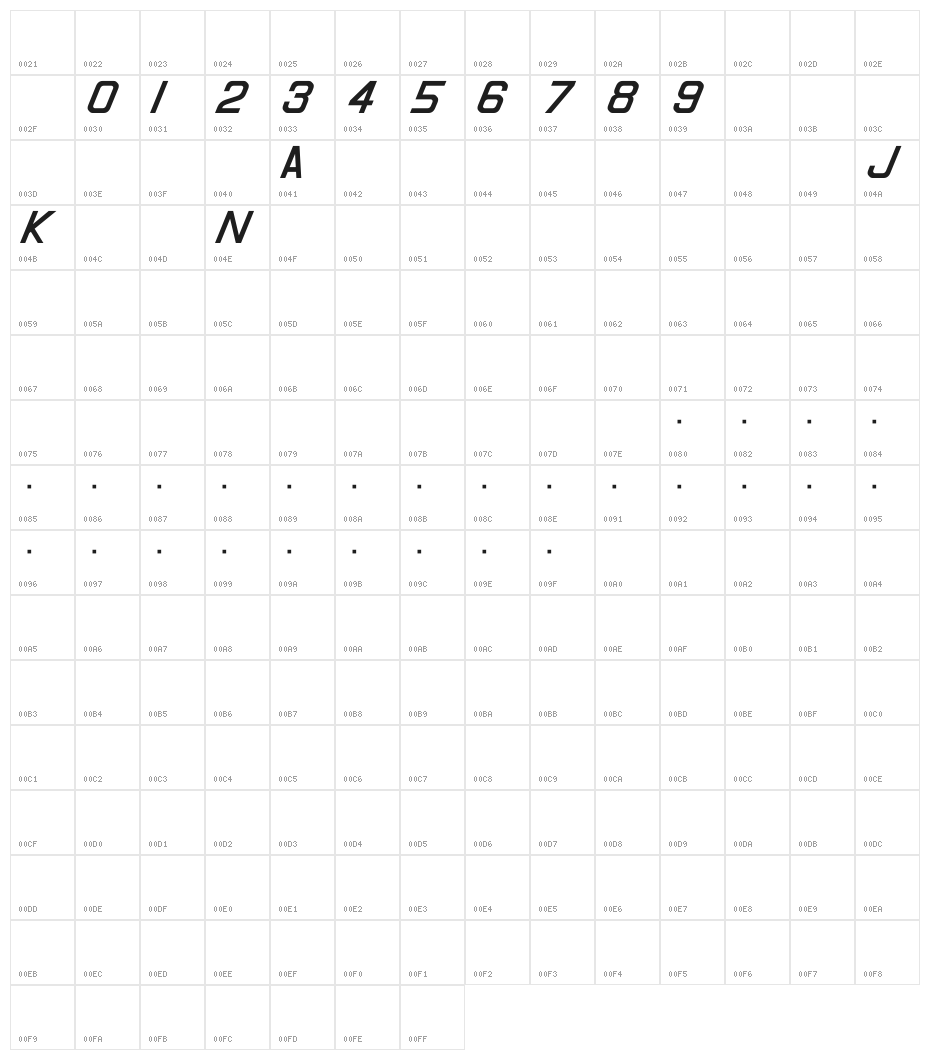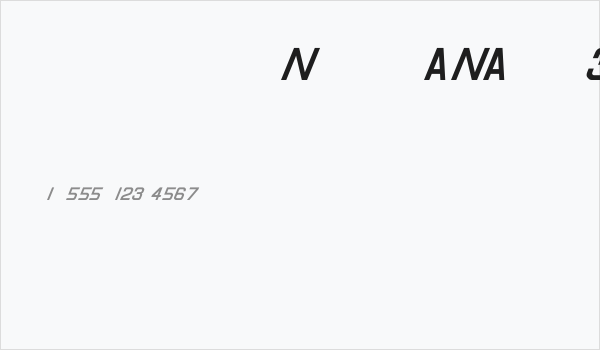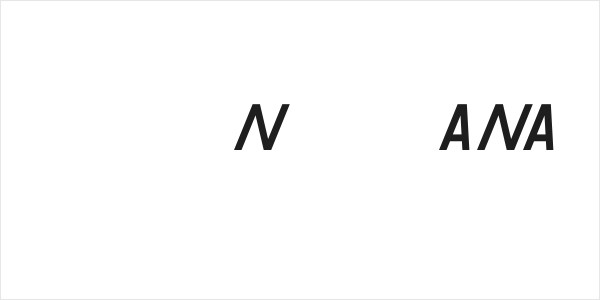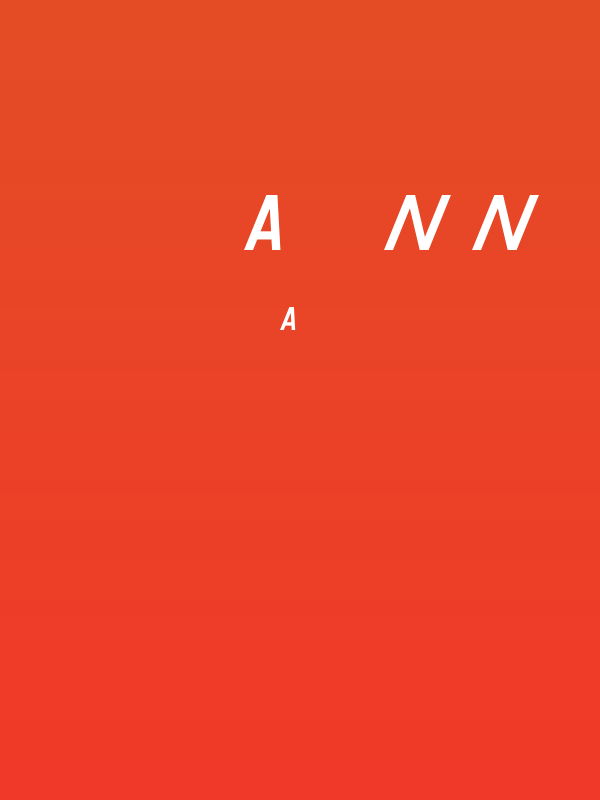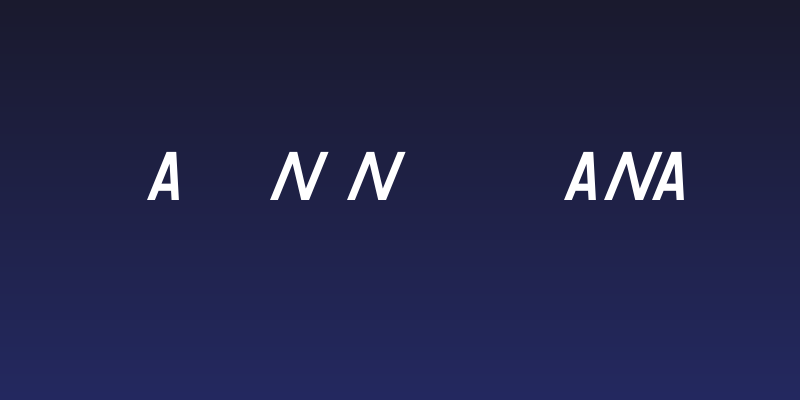
Registration Number ANA I v3 Font
Registration Number ANA I v3 Description
This font features a modern, sleek design with a slightly italicized style. The characters are bold and have a consistent stroke width, giving them a strong and impactful appearance. The numbers are particularly distinctive, with a futuristic and technical feel. The overall look is clean and minimalistic, making it suitable for a variety of applications where clarity and precision are important. The spacing between characters is normal, ensuring readability while maintaining a compact appearance.
| Use Case | Headlines, Logos, Digital Interfaces |
| Proposed Projects | Ideal for use in technology branding, automotive design, digital interfaces, and modern advertising. |